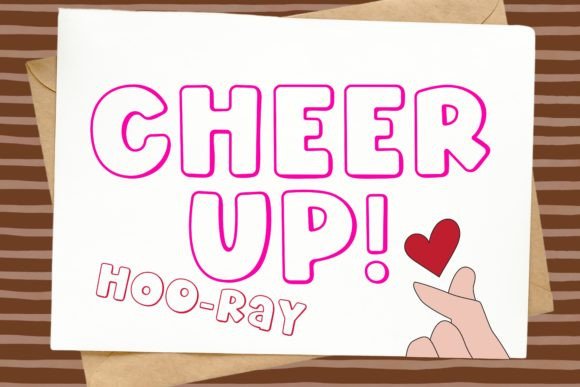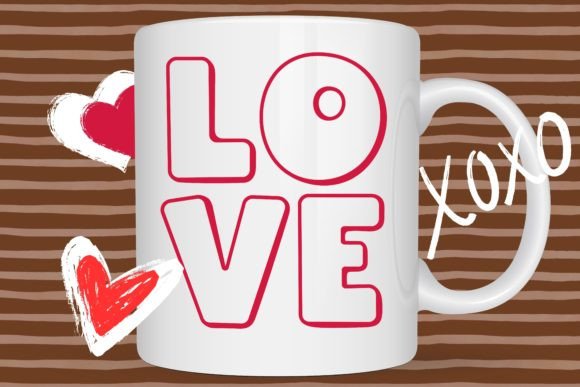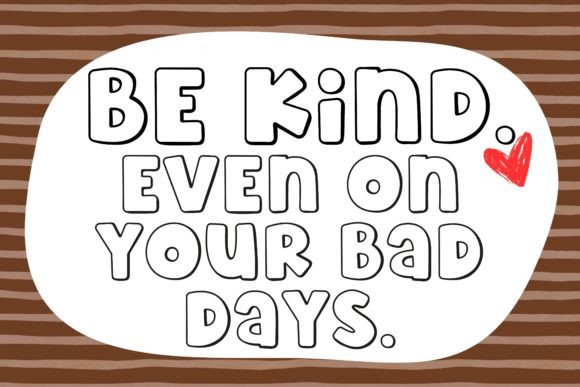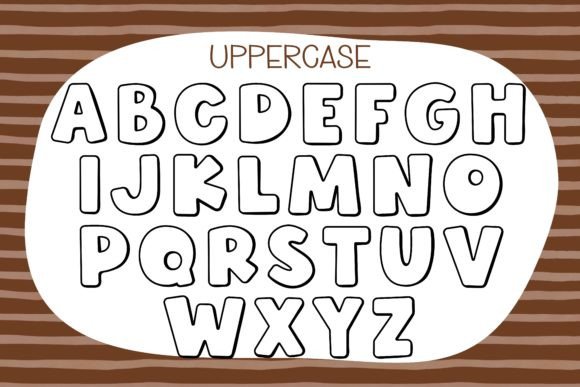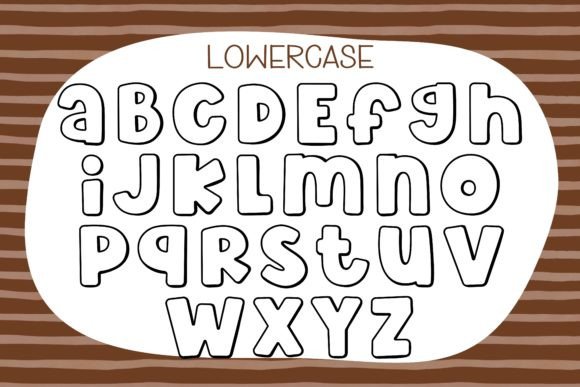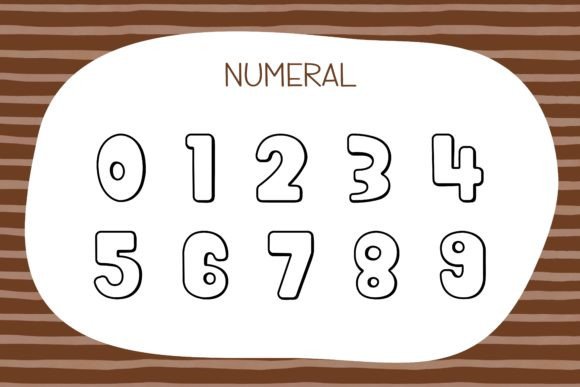
Introduction to Honey Cookie Font
Have you ever found yourself stuck in a creative rut, scrolling through design resources in search of that perfect touch to elevate your project? That’s exactly where I was when I stumbled upon the adorable Honey Cookie Font. Its cute and playful style instantly caught my attention, and I knew I had to share it with fellow designers and creatives.
Designed to add a bright and fun touch to any project, the Honey Cookie Font is a valuable resource for designers looking to create eye-catching and engaging designs. Whether you’re working on a child-related project, such as a birthday party decoration or a back to school theme, or simply need a high-quality font to add a creative twist to your design, this font is sure to deliver.
Key Features of Honey Cookie Font
- High-quality, unique font design ideal for creative projects and personal use.
- Unique characteristics include rounded edges, smooth lines, and a playful touch, making it perfect for creative projects.
Honest Review: Honey Cookie Font
I recently stumbled upon the Honey Cookie Font, a free download that caught my attention for its unique, whimsical design. As a designer, I’m always on the lookout for high-quality design resources that can elevate my creative projects.
The Honey Cookie Font delivers on its promise of a sweet and playful aesthetic, perfect for any project that requires a touch of nostalgia and charm. The font’s transparent background makes it easy to customize and integrate with any design, ensuring a seamless user experience.
- Unique, whimsical design that’s perfect for creative projects
- ⚠️ Limited font styles and weights available
- ⚠️ May not be suitable for formal or professional projects
Overall, the Honey Cookie Font is a delightful addition to any designer’s toolkit. While it may not be perfect, its strengths far outweigh its weaknesses, making it a valuable resource for designers looking to add a touch of whimsy to their creative projects.
Getting the Most Out of Honey Cookie Font
To get the most out of this font, use it in combination with other design resources, such as images and graphics. You can also experiment with different font sizes and styles to create a unique look. Additionally, use the transparent background feature to create a clean and modern design.
The Honey Cookie Font is suitable for a wide range of design projects, including creative projects, marketing materials, and social media graphics. Its high-quality design and transparent background make it perfect for creating eye-catching designs.